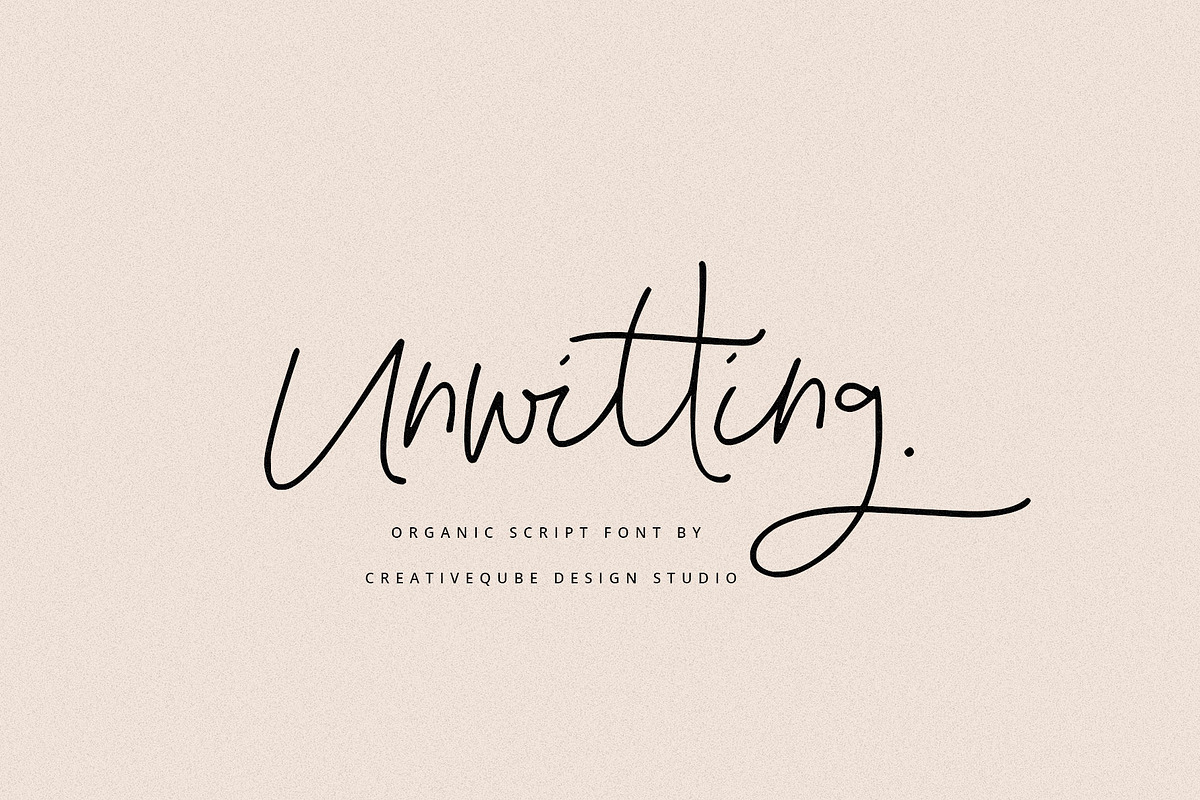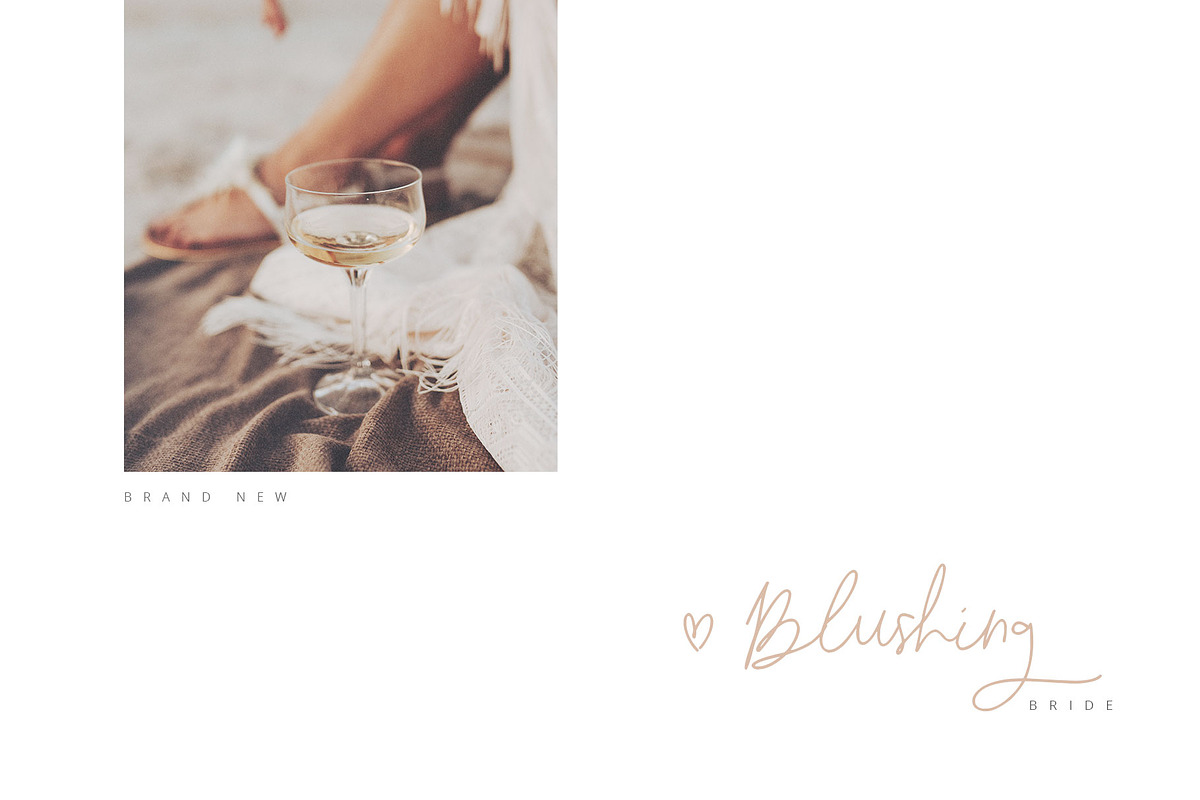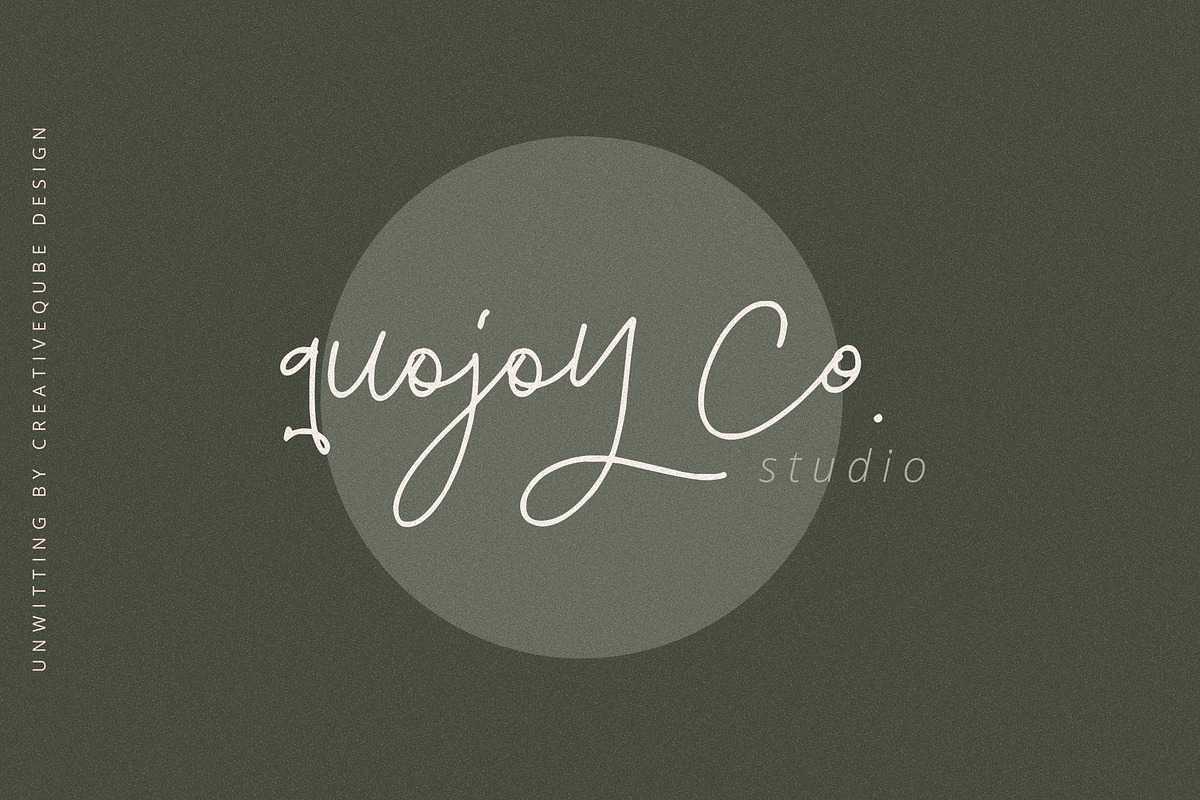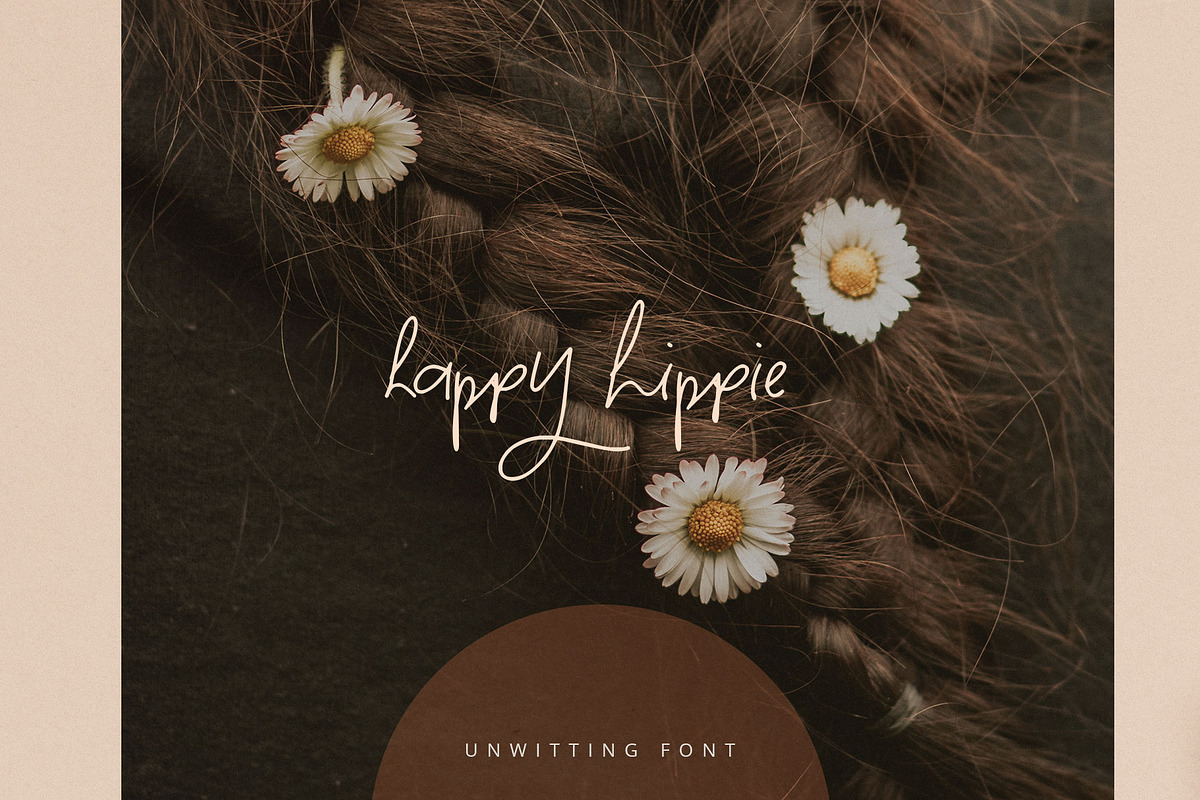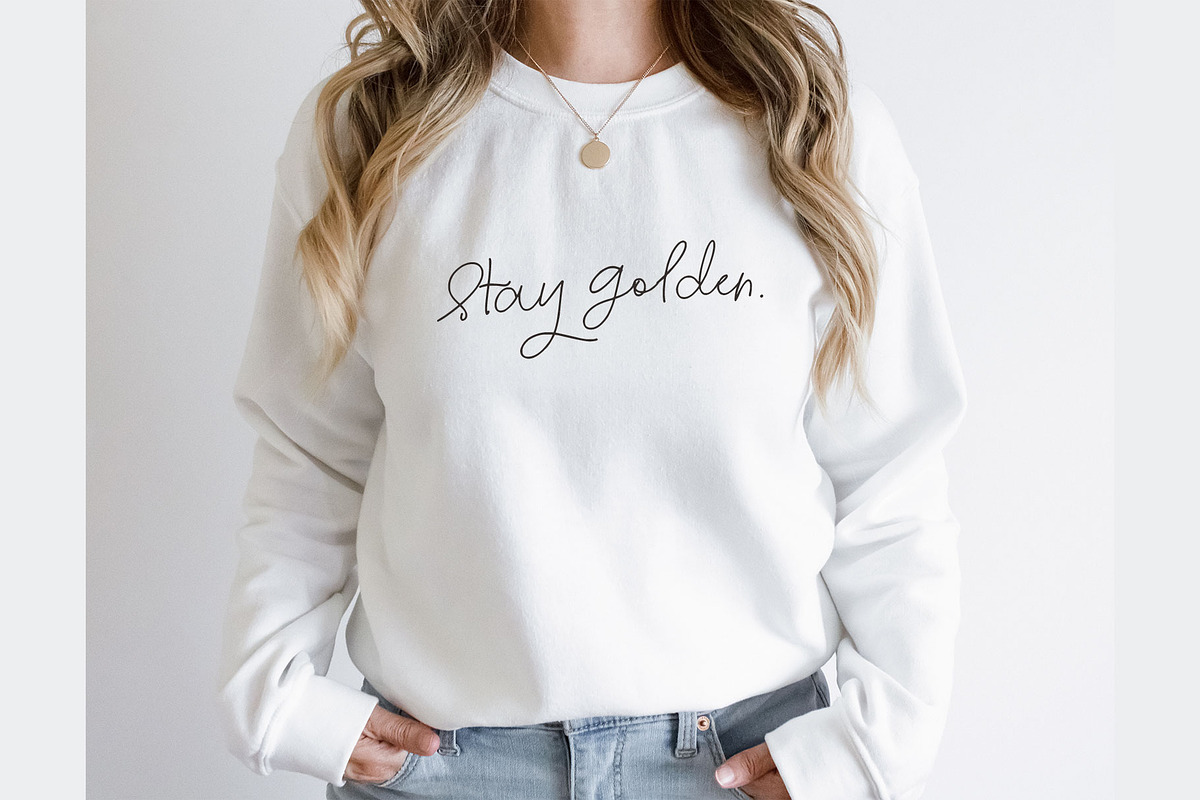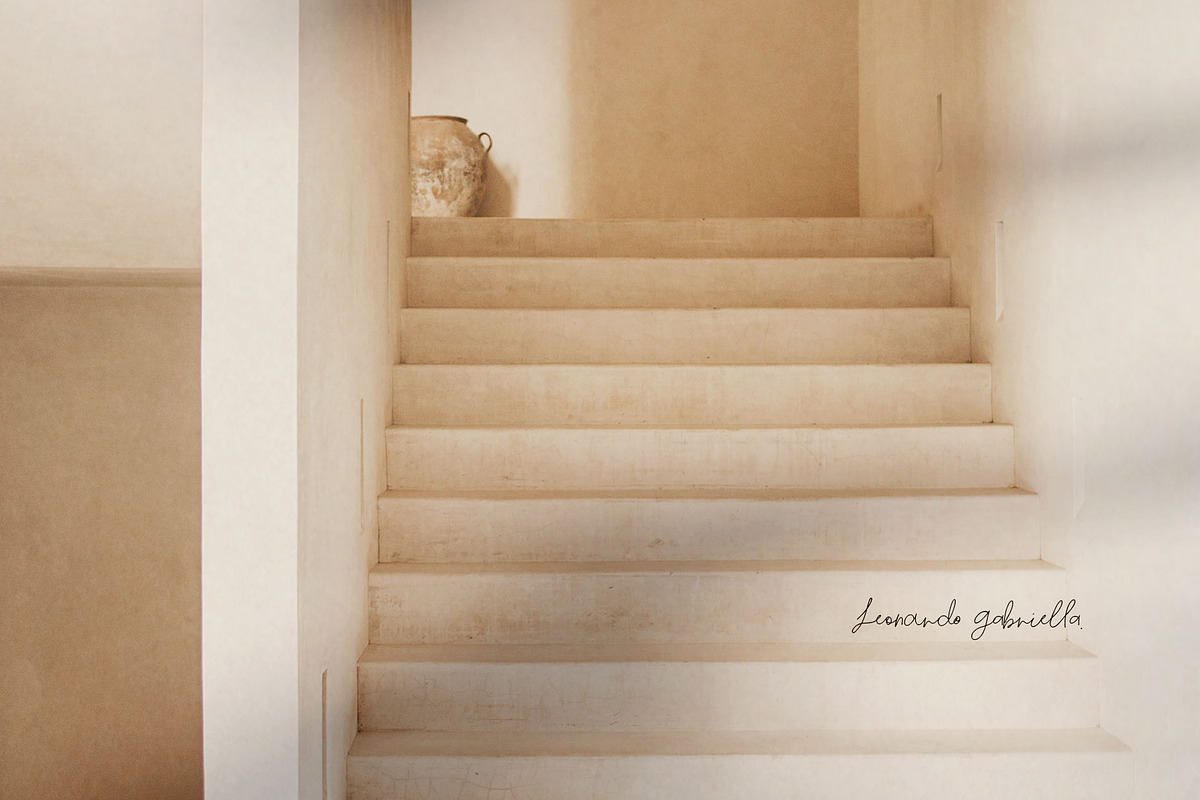
Unwitting Script Font
Unwitting Font
A hand-drawn, organic script font with a signature style!
Unwitting is perfect for t-shirts, modern designs, procreate, stickers, logos, branding, greeting cards, cricut projects, posters, advertising, social media, prints and more!